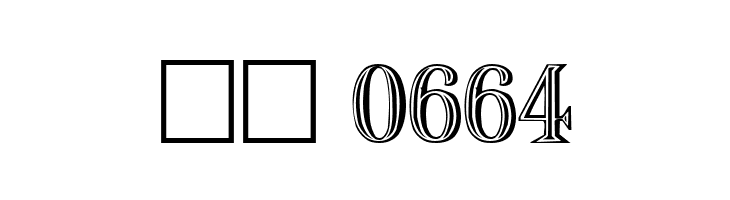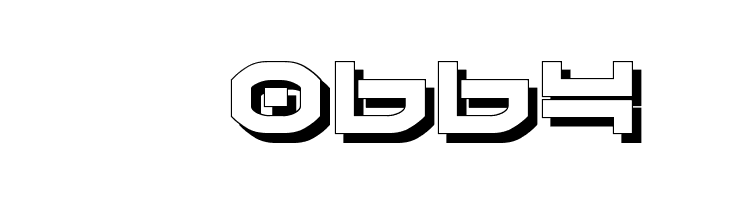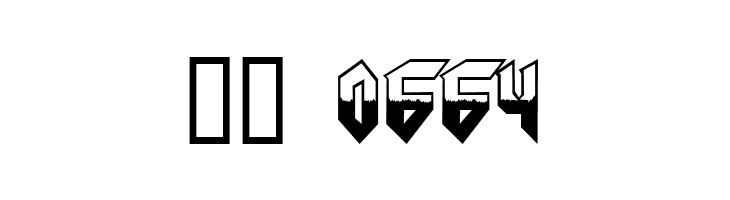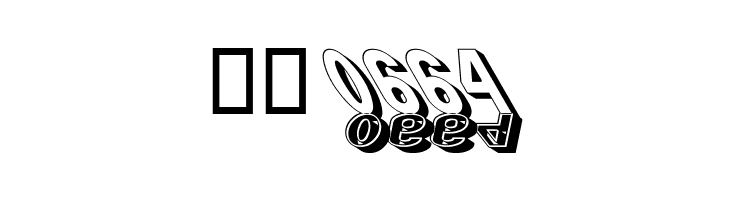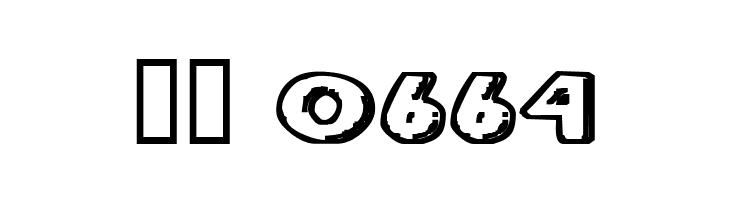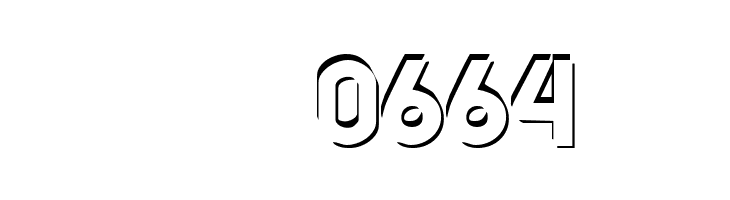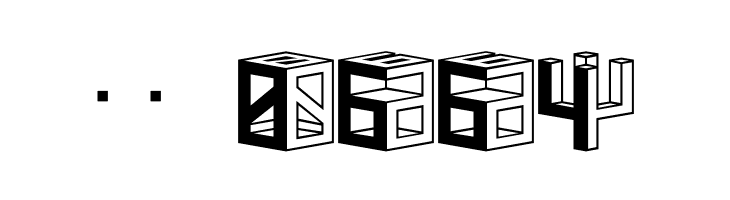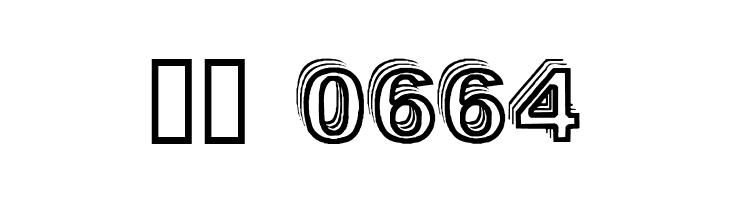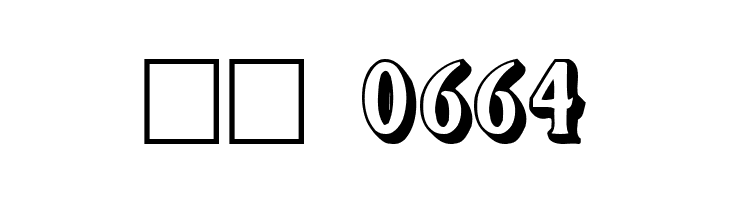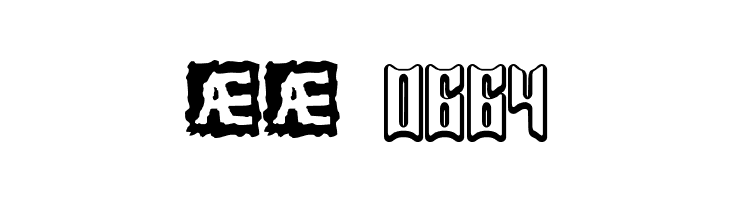
A bold, geometric font with a three-dimensional shadow effect.
A bold, three-dimensional font with a modern yet retro flair.
A bold, outlined font with a three-dimensional shadow effect.
A bold, decorative font with a three-dimensional outline and modern, edgy style.
A bold, rugged font with a graffiti-inspired, three-dimensional look.
A bold, modern outline font with a three-dimensional effect.
A bold, three-dimensional geometric font inspired by cubism.
A futuristic, geometric outline font with a layered, three-dimensional appearance.
A bold, cartoonish font with a playful, three-dimensional effect.
A bold, shadowed font with a three-dimensional effect, ideal for impactful designs.
A geometric, three-dimensional font with a modern, futuristic style.
A bold, decorative font with a three-dimensional outline effect.
Bold, shadowed font with a modern, three-dimensional look.
A futuristic, bold, and rounded font with a three-dimensional outline.
A bold, outlined font with a playful and three-dimensional appearance.
A bold, three-dimensional font with a strong shadow effect and geometric forms.
A futuristic, geometric font with bold, interconnected lines and a three-dimensional appearance.
A bold, retro font with a playful, three-dimensional outline effect.
A bold, playful font with a three-dimensional, bubble-like appearance.
A bold, three-dimensional font with angular, geometric shapes and strong contrast.